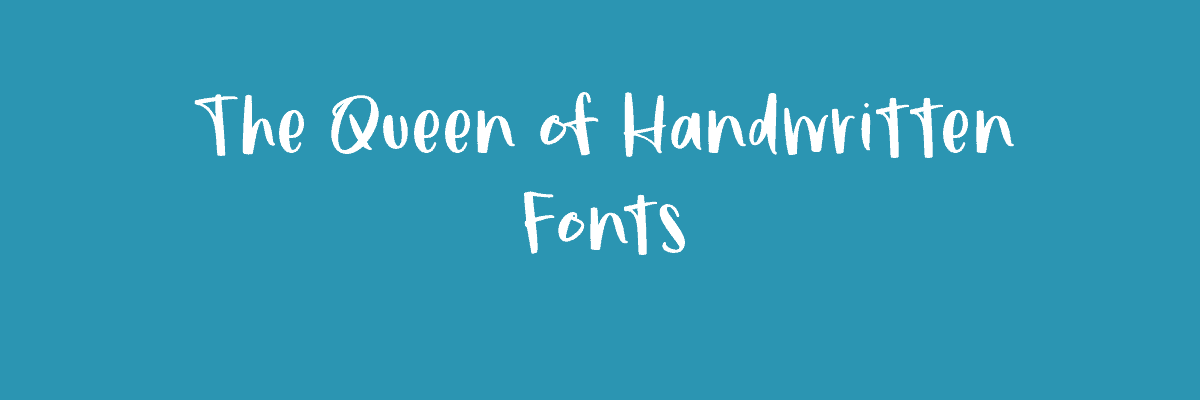
Kimberly Geswein: The Queen of Handwritten Fonts
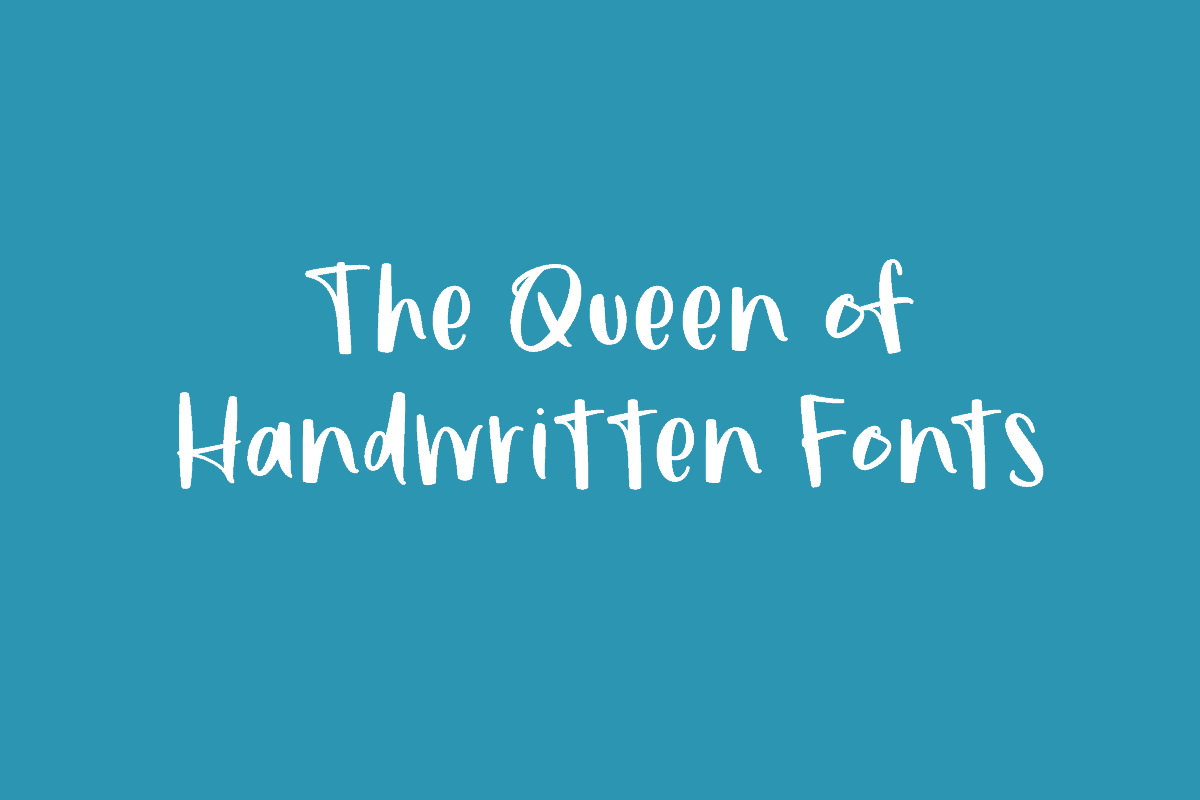
Kimberly Geswein (also known as KG fonts) is the Queen of handwritten fonts. You have seen her work on … everything. From Skittles to Ariana Grande’s “My Everything”, her work has become iconic and inspiring to those of us in the font design community.
More than just her work, Kimberly as a person is inspirational. Willing to help others with her experience and lead in places that others may shy away from, she genuinely works to make the world a better place.